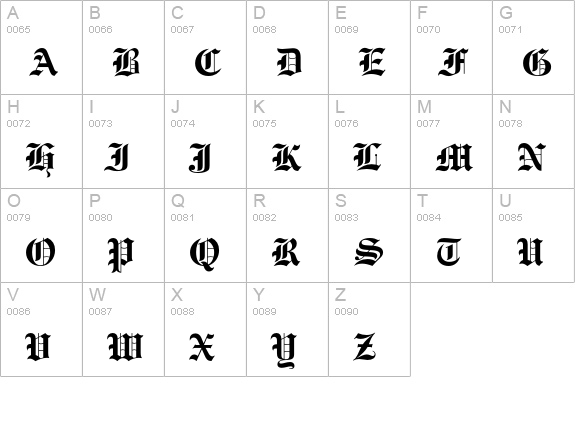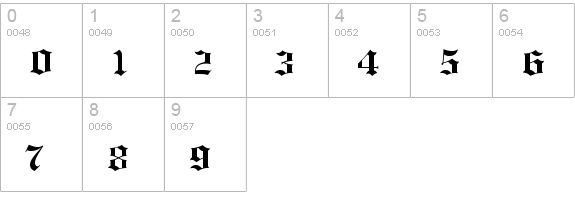
Chivalry Font Details
Chivalry font exudes a timeless charm and elegance, reminiscent of medieval knights and noble deeds. Its intricate details and ornate flourishes make it a perfect choice for projects that require a touch of sophistication and old-world charm. With its graceful curves and classic appeal, Chivalry font is sure to make a lasting impression. Best of all, Chivalry font is available for free download at FontsMarket.com. This means you can add a touch of medieval flair to your designs without breaking the bank. Whether you're working on invitations, posters, or branding materials, Chivalry font is a versatile choice that will elevate your designs to the next level. Download it today and let your creativity shine with this exquisite typeface.